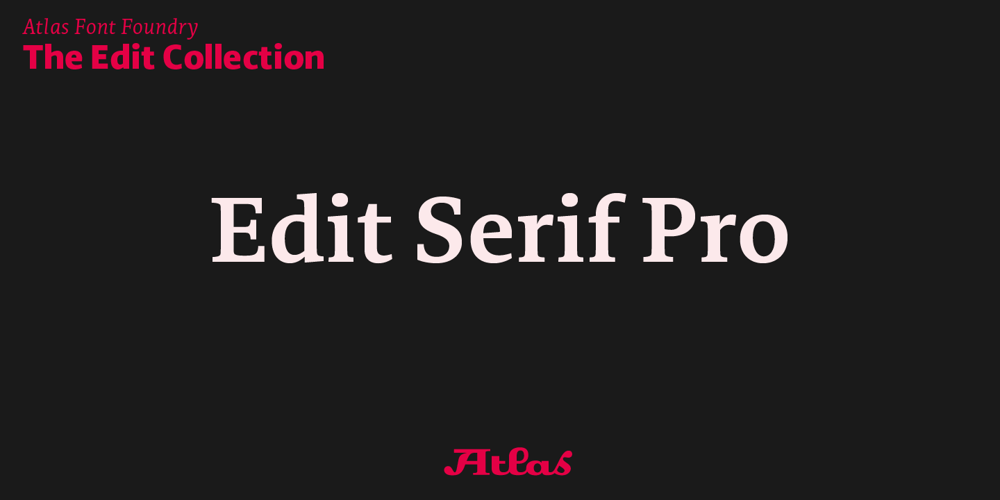
Edit Serif Pro Font Family was designed by Christoph Dunst and published by Atlas Font Foundry. Edit Serif Pro contains 13 styles and family package options. The Edit Collection is a brand new super family designed to create multi-platform brand and editorial typography. The Renaissance construction allows the typeface to handle long texts in small, medium and large sizes, balancing its astonishing and recognisable details with high legibility. The Edit Collection with its rational, clean aesthetics and great versatility is best suited for complex typography programs. Edit Serif Pro is a modern multilingual multi purpose typeface and the first release of Atlas’ next super family. Its humanist contrast combined with modern details makes Edit Serif Pro suitable for headlines and texts that need to distinguish themselves — while still expressing rational and clean aesthetics. Each style comes with 1.540 glyphs, many features and alternative character sets. As the well known Heimat Collection and Novel Collection already are, Edit will soon become a huge superfamily like all typefaces published by Atlas Font Foundry. Designed by Christoph Dunst for Atlas Font Foundry between 2012 and 2017.